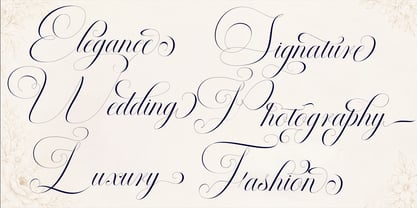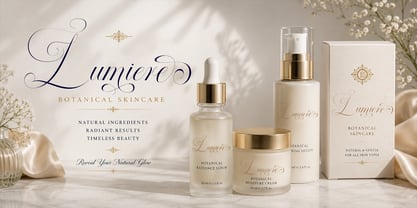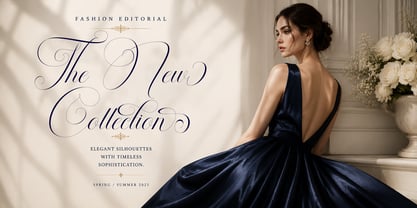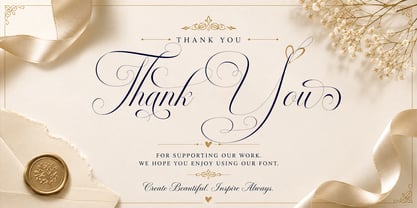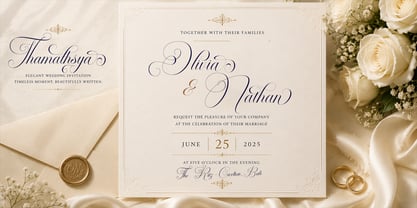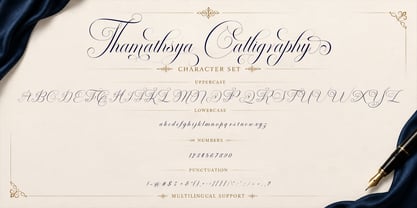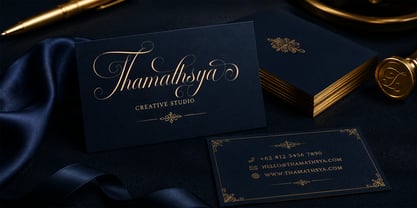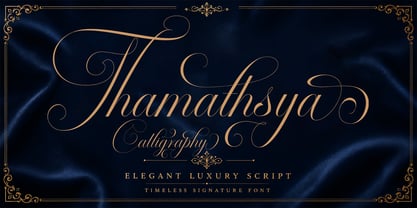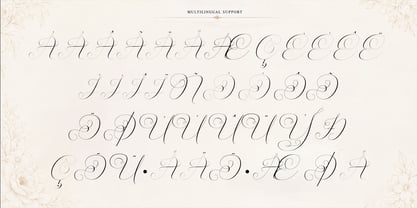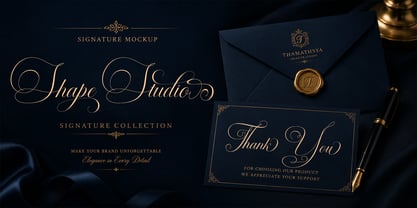
Thamathsya Calligraphy
by Shape Studio
The Thamathsya Calligraphy Font Family was designed by Teuku Saifullah and published by Shape Studio. Thamathsya Calligraphy contains 2 styles and family package options. More about this family
Thamahsya Calligraphy is an elegant luxury calligraphy font designed to bring timeless sophistication to every project. Featuring graceful flowing strokes, dramatic swashes, and refined letterforms, this script font is perfect for premium branding, wedding invitations, luxury packaging, fashion editorials, signature logos, cosmetic labels, jewelry branding, and high-end stationery.
Its beautifully balanced characters create a graceful handwritten appearance while maintaining excellent readability. Whether you're designing an exclusive brand identity or creating elegant typography for special occasions, Thamahsya Calligraphy delivers a luxurious and professional look that leaves a lasting impression.
Perfect for:
• Luxury Branding
• Signature Logos
• Wedding Invitations
• Fashion Editorials
• Cosmetic Packaging
• Jewelry Branding
• Perfume Labels
• Business Cards
• Social Media Quotes
• Premium Packaging
Designers: Teuku Saifullah
Foundry: Shape Studio